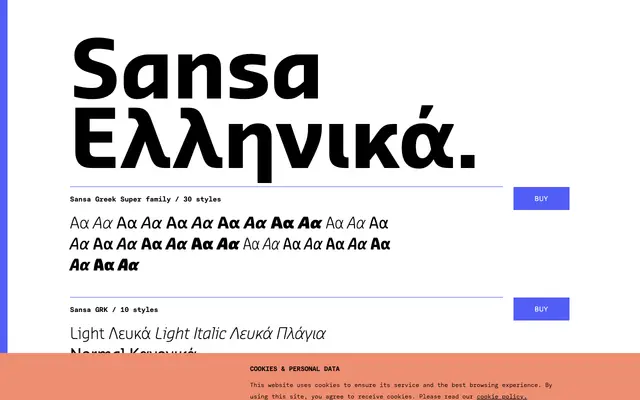
Sansa Greek
A 30-style Greek sans-serif superfamily spanning regular, semi-condensed and condensed widths across five weights with matching italics.
The family covers three width variants — standard, semi-condensed and condensed — each running from Light to Black with italic companions, giving 30 styles in total. OpenType features include small capitals, oldstyle figures, tabular figures, fractions, case-sensitive forms, stylistic alternates and a slashed zero. Suited to Greek-language editorial and identity work where width flexibility and weight range matter.
Sansa Greek is a sans-serif family with humanist proportions, presented across regular, semi-condensed and condensed widths with a full Greek script character set.